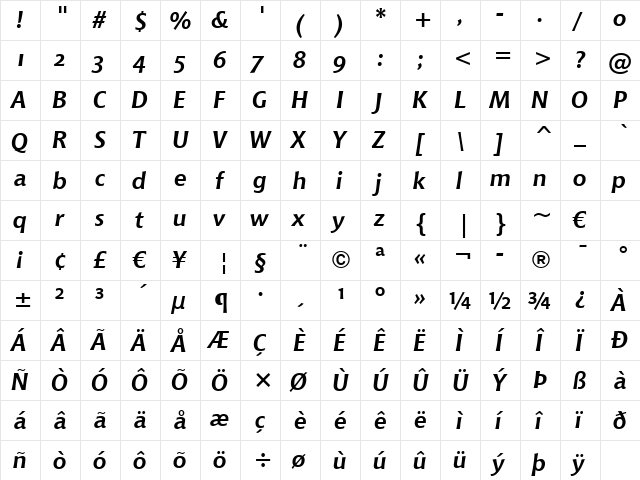
Chianti BdIt OSF BT Bold Italic
Design Context for Chianti BdIt OSF BT Typeface
Chianti BdIt OSF BT takes a measured approach to typography — its balanced proportions and neutral character make it a reliable workhorse for both digital and print work. The dynamic lean of this cut emphasises speed and emphasis in any layout. Its bold stroke weight gives it real presence on the page.
Pro Tip: Use Chianti BdIt OSF BT for emphasis, pull quotes, and subheadings where its slanted energy can add rhythm to the layout.